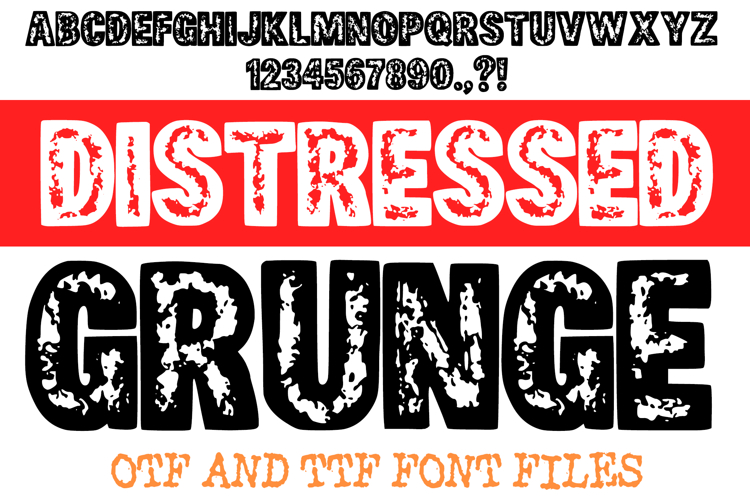
Distressed Grunge Lettering ABC Splatter Font Typeface OTF
Unleash raw, untamed energy into your designs with Distressed Grunge Font! This powerful and authentic typeface perfectly captures the essence of weathered surfaces, urban decay, and rebellious aesthetics. Featuring a bold, assertive structure filled with a rich, gritty texture and a distinct outline, it's more than just a font; it's a statement piece designed to add immediate, edgy character to any creative project.
Each character in Distressed Grunge Font is meticulously crafted to mimic the worn, scratched, and imperfect look of aged prints or weathered materials. This creates a unique, authentic, and eye-catching appearance that resonates with industrial, punk, and street art vibes. Ideal for crafting impactful headlines, edgy logos, grunge-themed posters, rock band merchandise, and engaging social media graphics, this font ensures your message cuts through the noise.
Whether you're aiming for a classic grunge aesthetic, a post-apocalyptic feel, a raw street art vibe, or a distressed vintage look, this font delivers with uncompromising style. Its strong presence, combined with its textured outline, ensures readability while injecting a raw, artistic character that stands out from pristine digital designs.
If you're looking to infuse your designs with a sense of rebellion, genuine texture, and undeniable urban credibility, Distressed Grunge Font is your ultimate tool. Embrace the grit and make your mark!